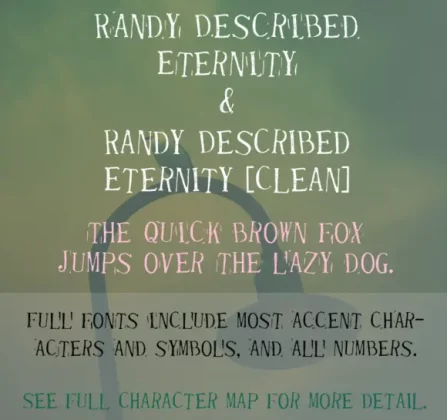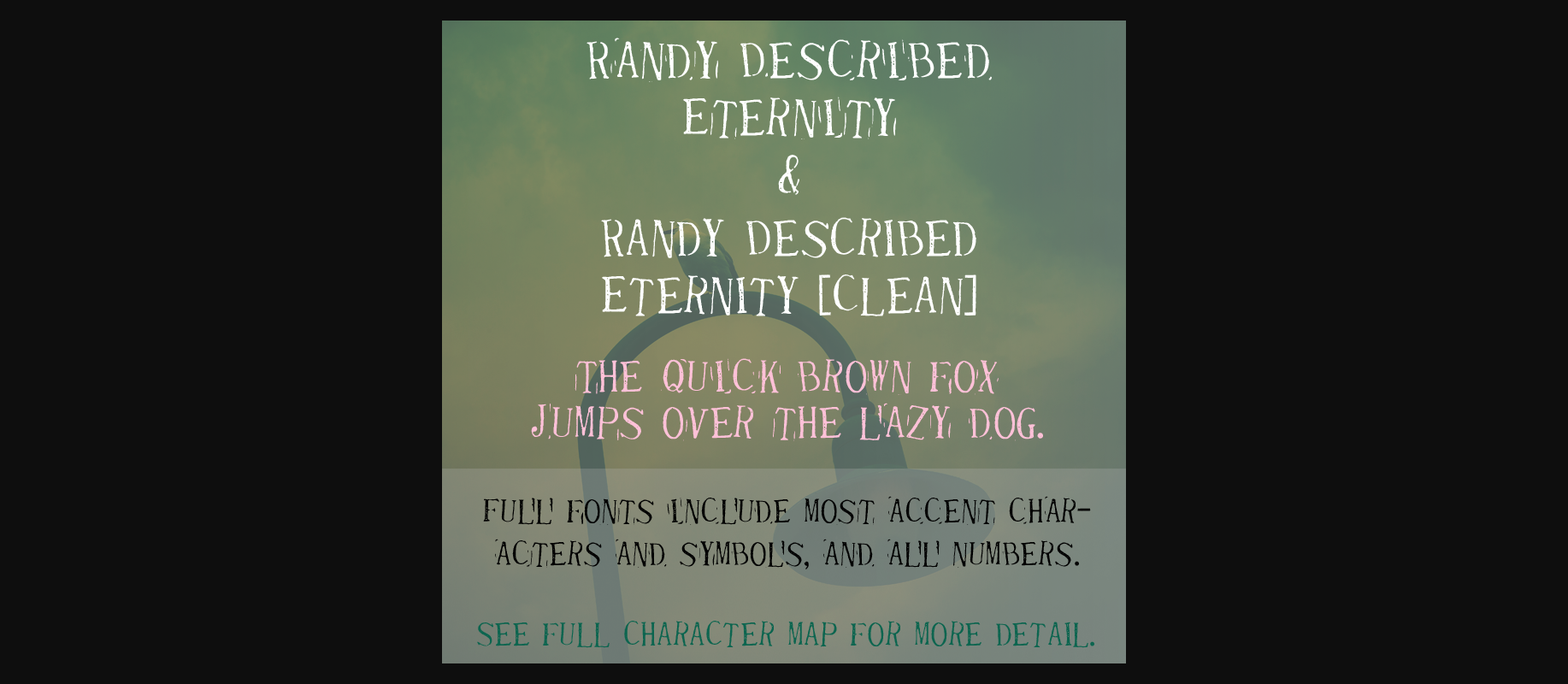
Randy Described Eternity Font
About Randy Described Eternity Font
The Randy Described Eternity font was created from dollar store stamps, which I still use to this day on birthday and holiday cards. The font was originally released in August 2001. In February 2016, I added several more characters to the set, including accent characters. I also created a second font called Randy Described Eternity Clean. It is nearly identical, except I removed the rubber stamp edges from each character and brought the characters a little closer together. It may be a little easier to read.